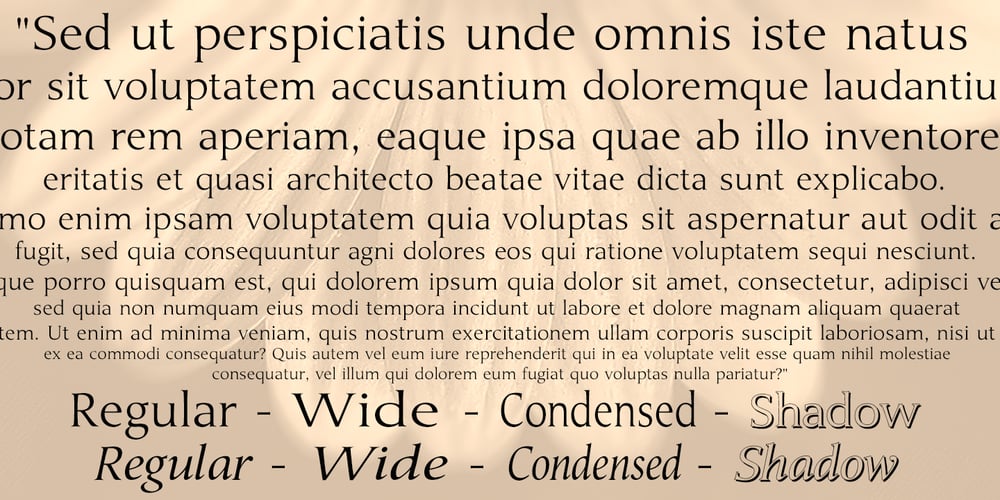
Umerica Font Family was designed by Graham Meade and published by Typotheticals. Umerica contains 8 styles and family package options. Umerica first made its appearance in 2007 as a series of characters in a pdf I posted to Typophile. It has taken a lot of time, and determination, for me to finally decide to complete it. I had the basic font completed in 2008, but put it aside as the creation of the italics it deserved were beyond me. That was then. Now the italic version has finally been added twelve years later.